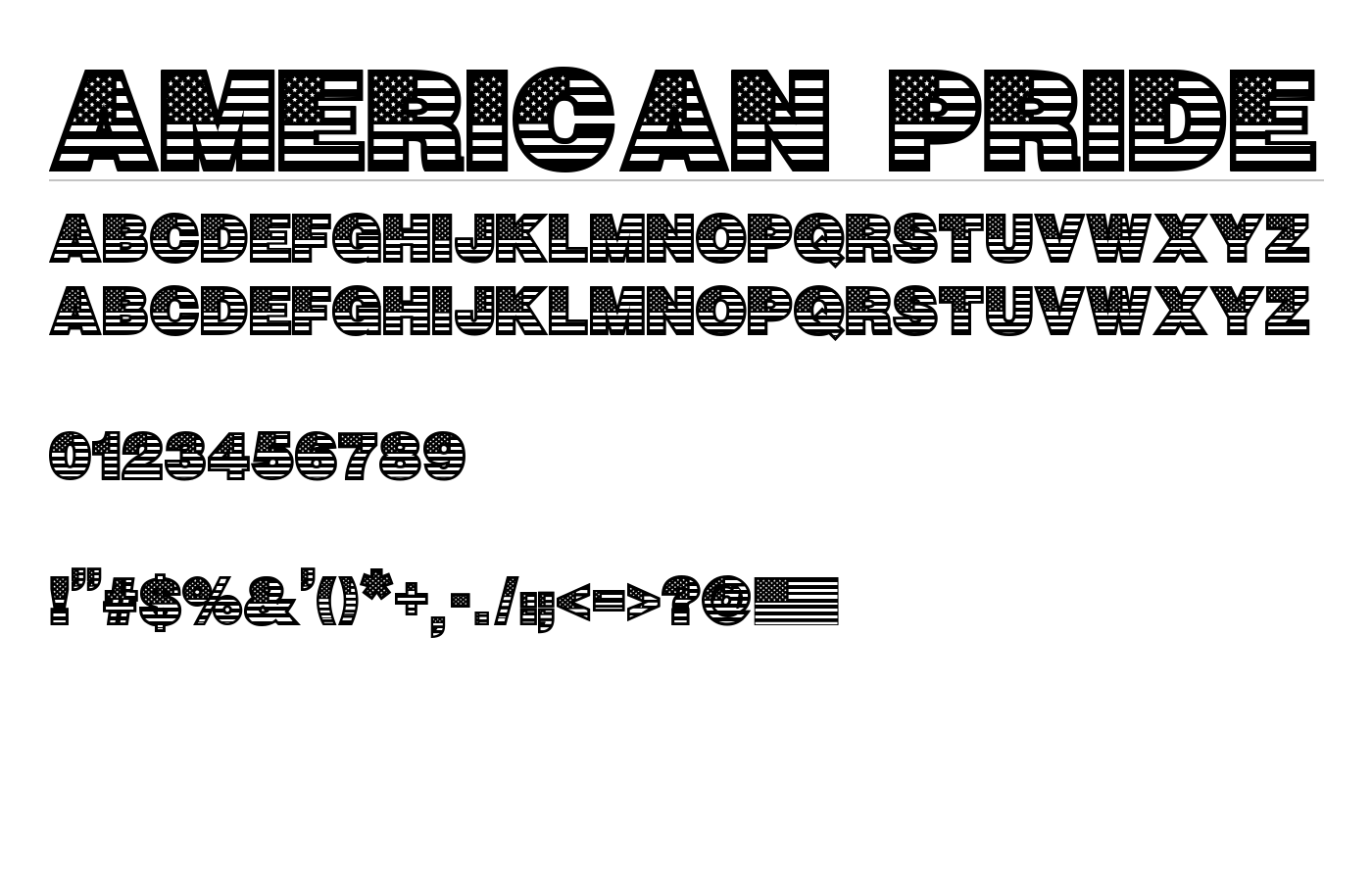
American Pride is a bold, uppercase sans serif display font that features strong, blocky letterforms filled with a stylized American flag pattern of stars and stripes. Its high-impact design combines patriotic symbolism with modern, geometric shapes, making it perfect for eye-catching headlines, posters, and branding that aim to evoke national pride and celebration. This font works best in large sizes where its detailed pattern can stand out and create a lively, spirited atmosphere.
American Pride Font
About American Pride Font